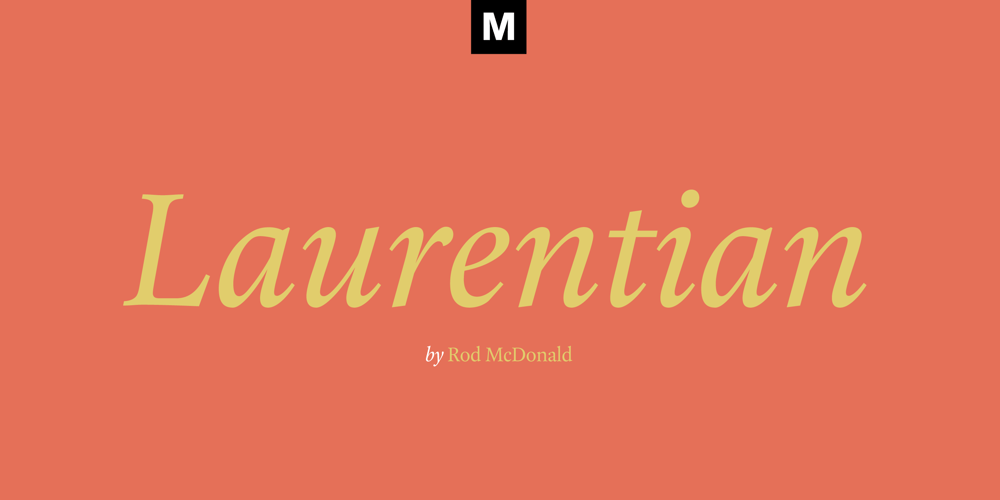
Laurentian
Laurentian font
Laurentian Font Family was designed by Rod McDonald and published by Monotype. Laurentian contains 8 styles and family package options. Maclean’s is a weekly Canadian newsmagazine with a broad editorial mission. A typical issue covers everything from violence on the other side of the globe to the largest pumpkin grown in a local county. In 2001, Maclean’s invited Rod McDonald to become part of the design team to renovate” the 96-year-old publication. The magazine wanted to offer its readers a typographic voice that was professional, clean, and easy to read. Above all, the typeface had to be able to speak about the hundreds of unrelated subjects addressed in each issue while remaining believable and uncontrived. A tall order, perhaps? Now add in that this would be the first text typeface ever commissioned by a Canadian magazine. McDonald, who some have called Canada’s unofficial “typographer laureate,” took on the challenge. McDonald used two historic models as the basis for Laurentian’s design: the work of French type designer Claude Garamond, and that of the English printer and type founder, William Caslon. From Garamond Laurentian acquired its humanist axis, crisp serifs and terminals that mimic pen strokes. Caslon’s letters are less humanistic, with a more marked contrast in stroke weight and serifs that appear constructed rather than drawn. These traits also made their mark on Laurentian. Using these two designs as a foundation, McDonald drew Laurentian with the narrow text columns and small type sizes of magazine composition in mind. He gave his letters strong vertical strokes and sturdy serifs, a robust x-height and a slightly compressed character width A tall order, per McDonald’s genius is evident in the face’s legibility, quiet liveliness and in the openness of the letters. The result is a typeface that not only met Maclean’s demanding design brief, but also provides exceptional service in a wide variety of other applications. Laurentian is available in three weights of Regular, Semi Bold and Bold, with complementary italics for the Regular and Semi Bold, and a suite of titling caps.”